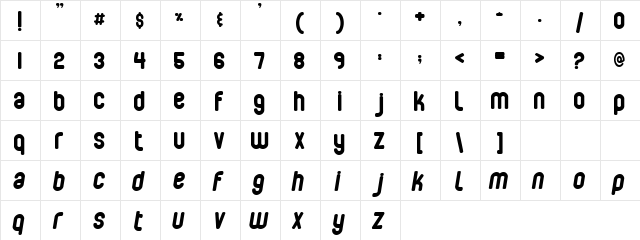
Steady Square Regular
Design Context for Steady Square Typeface
Steady Square offers clean, dependable letterforms without strong stylistic allegiance, making it a practical choice for designers who need flexibility.